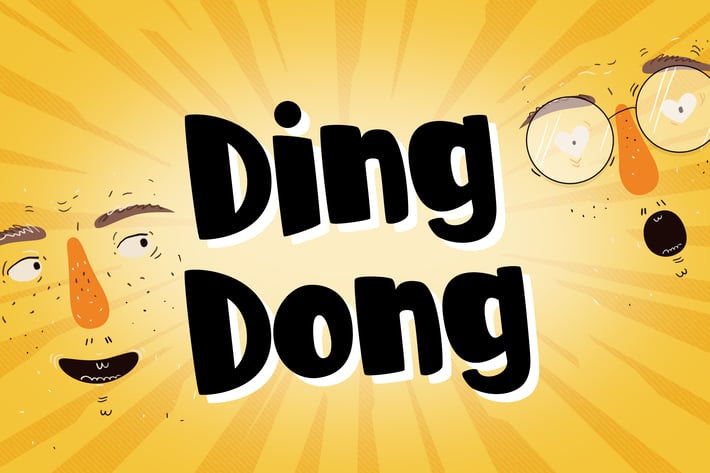
Ding Dong - Comic Display Font
A rounded corner sans serif that will bring the world into a comical way.
Ding Dong is a go-to font that will engage the audience in no time.
Suit perfectly for comical books market, online games, teens event posters, school supplies font, posters, movie titles, youtube covers, youtube thumbnails, social media page covers, and so on...